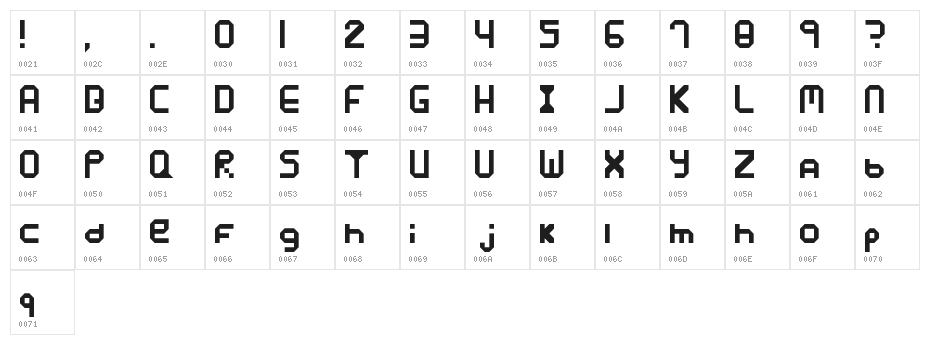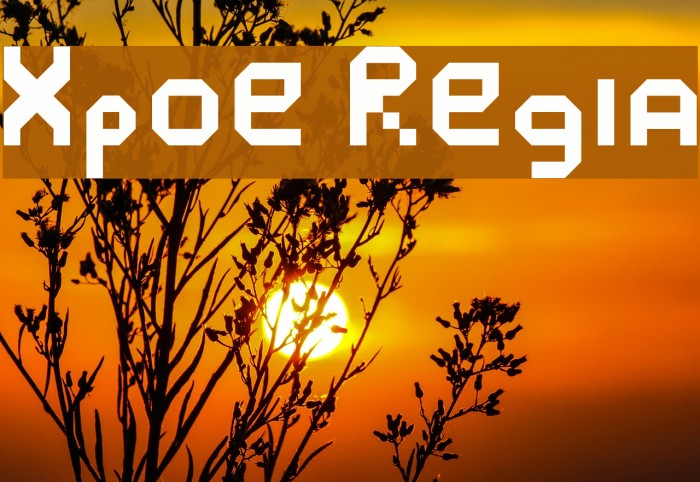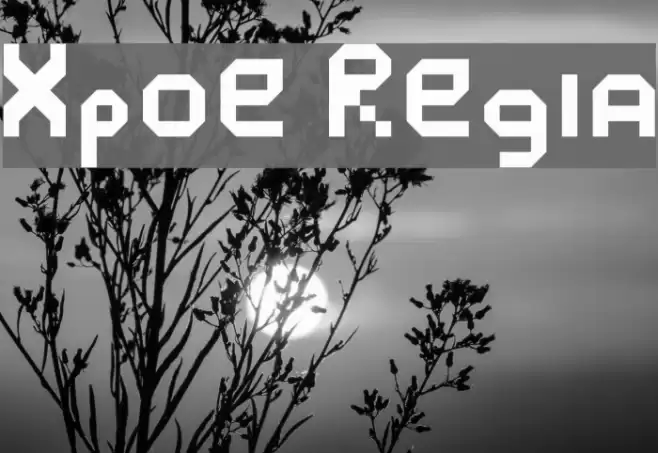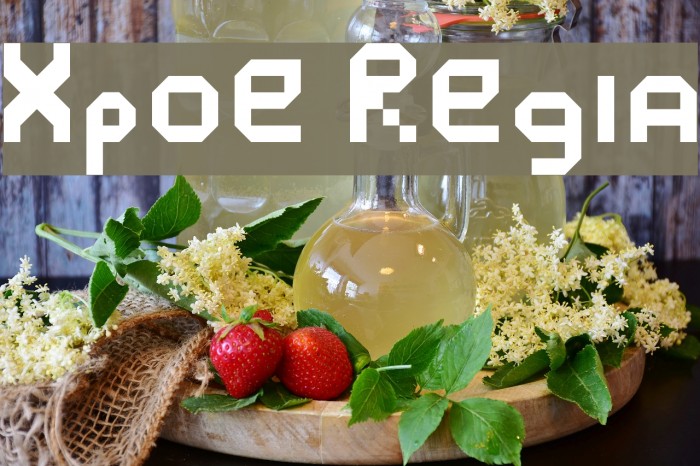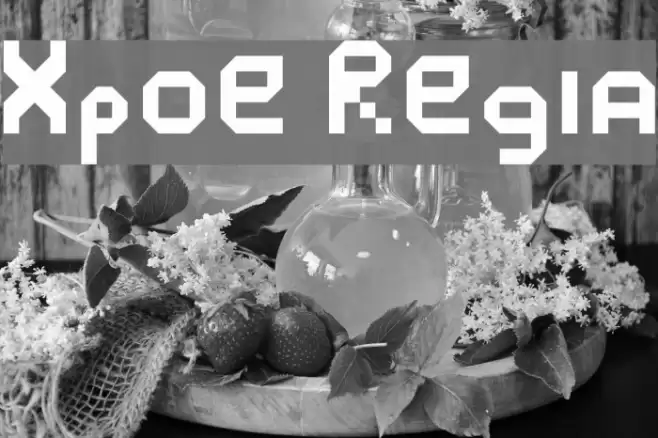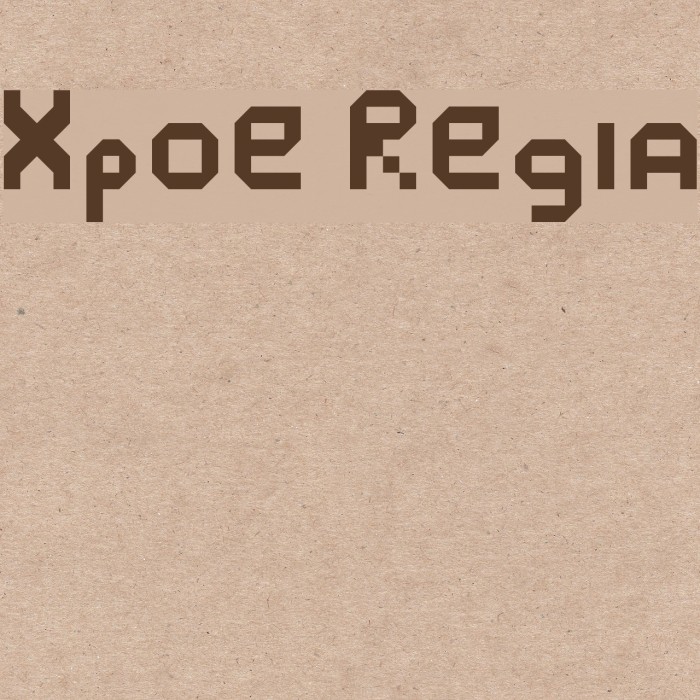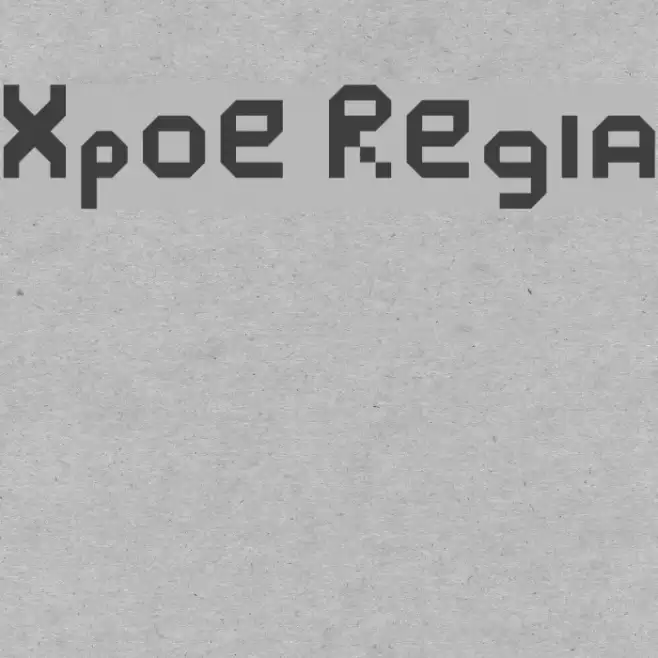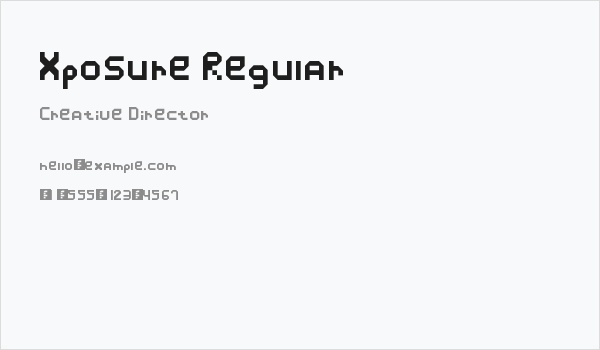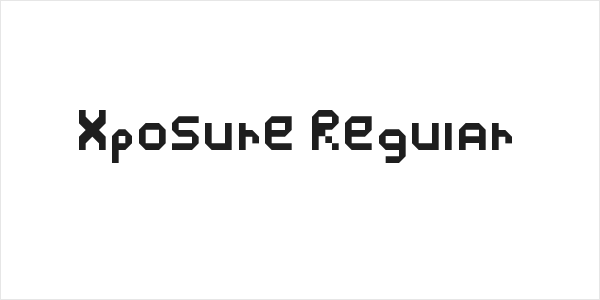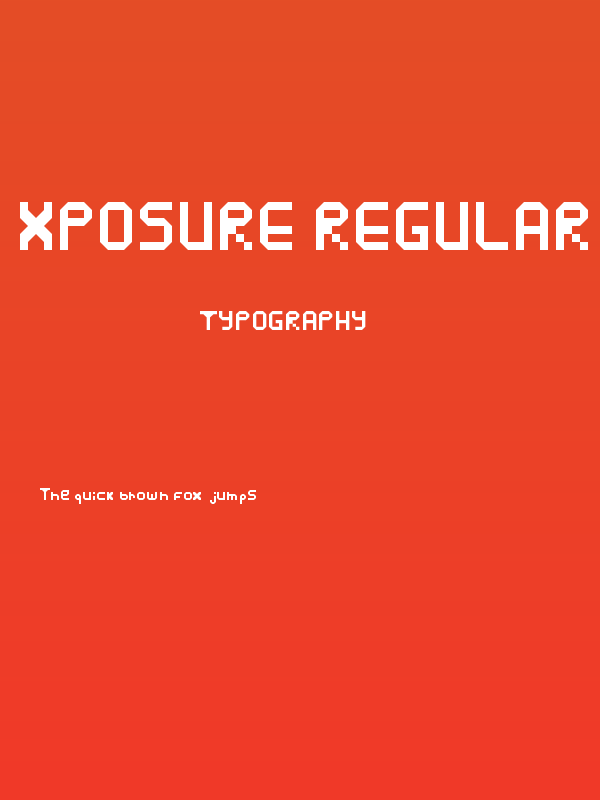
Xposure Regular Font
Xposure Regular Description
This font features a bold, geometric design with a futuristic aesthetic. The characters are constructed with sharp angles and straight lines, giving it a digital and modern feel. The uppercase and lowercase letters maintain a consistent style, with unique cutouts and shapes that add visual interest. The numbers and special characters follow the same design principles, ensuring uniformity across all glyphs. This font is highly legible and stands out due to its distinctive appearance, making it suitable for various creative applications.
Proposed ProjectsIdeal for technology branding, video game titles, sci-fi movie posters, and digital media.